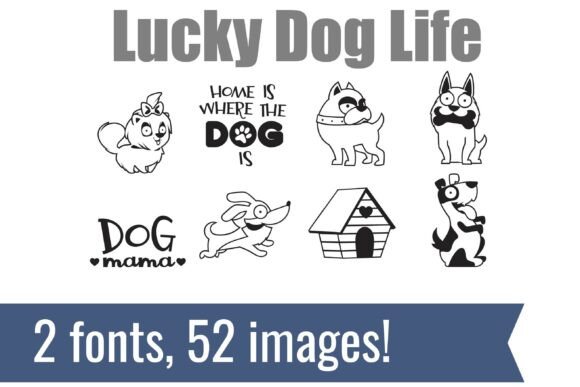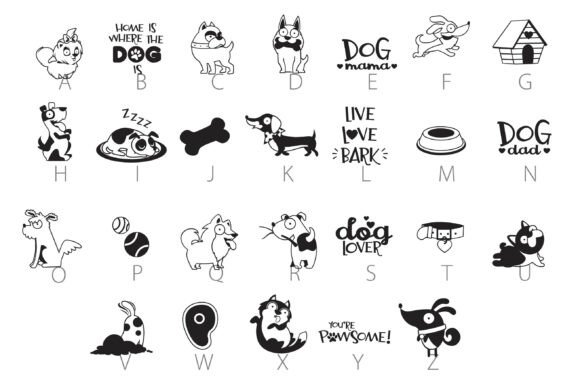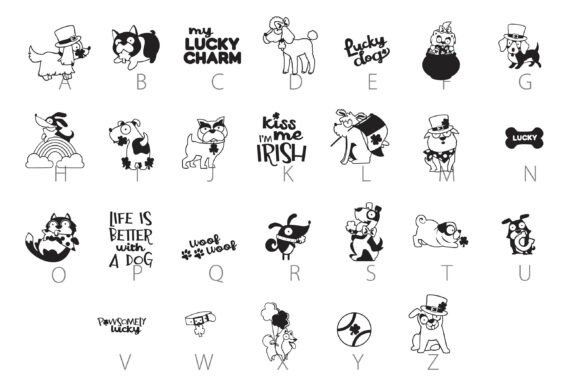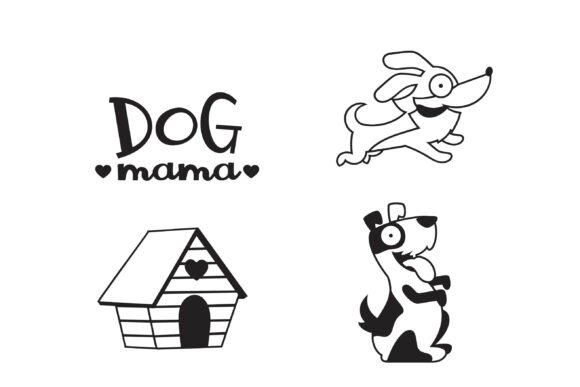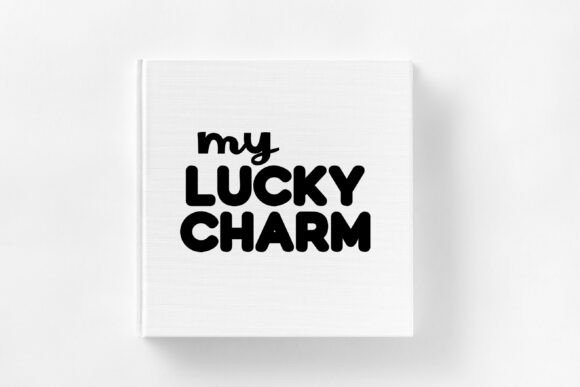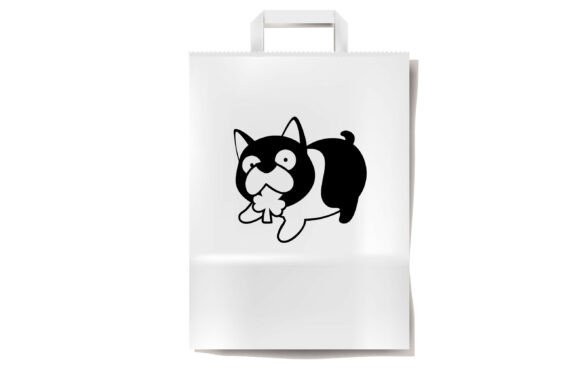
Introduction to Lucky Dog Dingbats Font
Do you remember the moment when a spark of creativity strikes, and you’re suddenly flooded with ideas for your next project? Maybe it was a late-night brainstorming session, or a stroll through the park that inspired you. Whatever it was, we’re here to help you bring those ideas to life with the Lucky Dog Dingbats Font.
As a designer, you know how valuable it is to have the right tools at your fingertips. That’s why we’re excited to introduce the Lucky Dog Dingbats Font, a game-changing design resource that will revolutionize the way you approach your creative projects. With this bundle, you’ll have access to two perfectly coordinated dingbat fonts featuring adorable dogs and their lucky lives.
Key Features of Lucky Dog Dingbats Font
- High-quality design resource for creative projects, ideal for designers and artists.
- Includes a variety of unique dingbats and icons with transparent backgrounds for seamless integration.
- Unique characteristics: playful and whimsical design style, making it perfect for adding a touch of personality to creative projects.
Honest Review: Lucky Dog Dingbats Font
I recently stumbled upon the Lucky Dog Dingbats Font and was excited to give it a try. As a designer, I’m always on the lookout for unique and high-quality design resources to enhance my creative projects. Lucky Dog Dingbats Font definitely delivers.
One of the standout features of this font is its versatility. It’s perfect for adding a touch of whimsy and playfulness to your designs. I love how the dingbats can be used to create custom graphics and icons for your projects. The high-quality design and transparent background make it easy to integrate into any design.
However, I do have to mention a few limitations: ⚠️ Limited character set, ⚠️ May not be suitable for formal or professional designs.
Overall, I’m really impressed with the Lucky Dog Dingbats Font. It’s a great addition to any designer’s toolkit and is perfect for adding a bit of fun and personality to your creative projects. If you’re looking for a unique and high-quality design resource, I would definitely recommend giving it a try.
The Lucky Dog Dingbats Font is perfect for creating social media graphics, flyers, and other promotional materials. Its unique design makes it a great addition to any creative project.